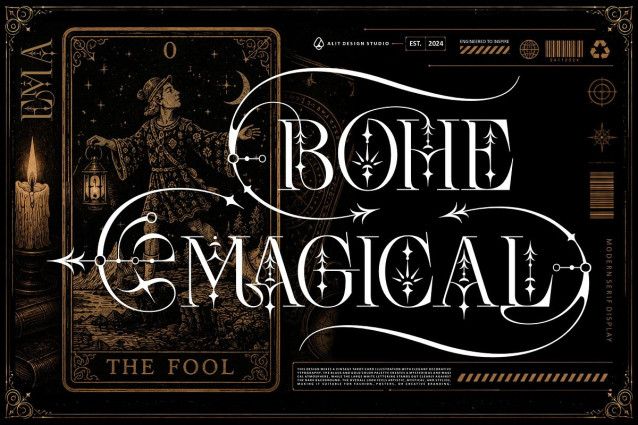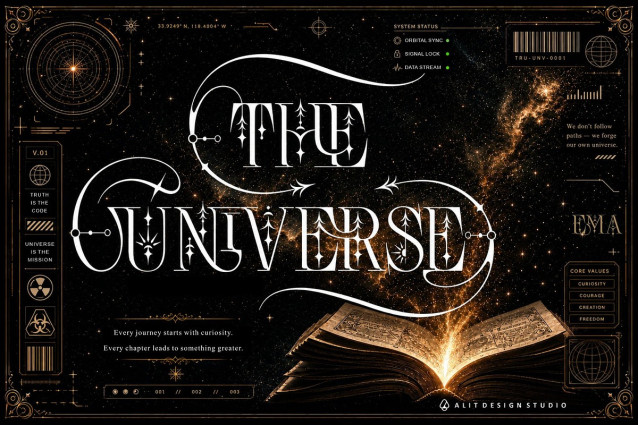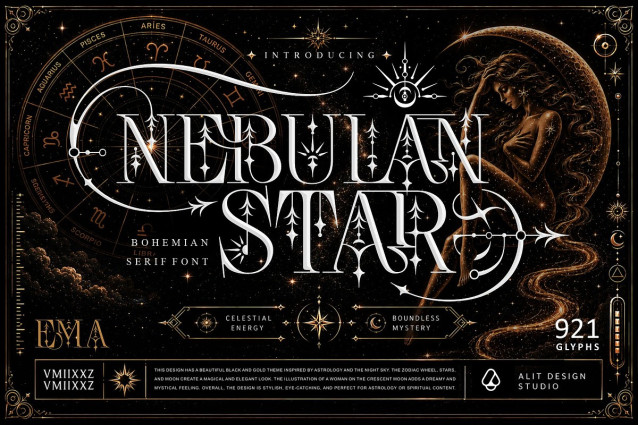
Nebulan Star Font
Nebulan Star Font an exquisitely designed Bohemian Serif Font that draws its inspiration from the enchanting depths of astrology, the magic of the night sky, and ancient esoteric lore. Designed by Alit Design Studio, this typeface seamlessly blends classical elegance with ethereal, cosmic energy, creating a truly unique and mystical visual experience.